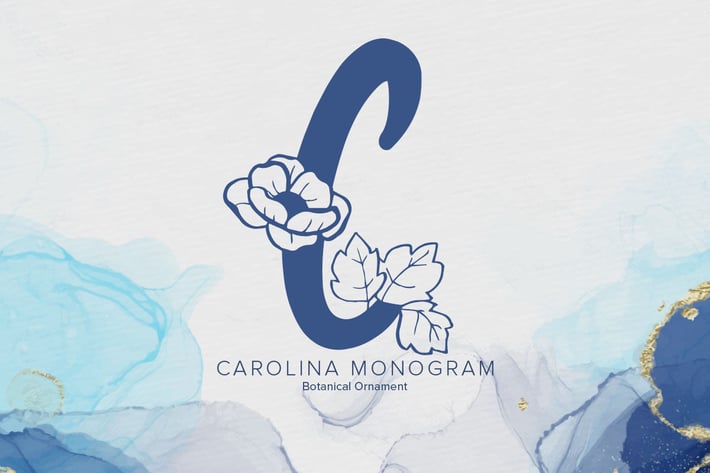
Carolina Monogram Font
Carolina Monogram is a distinct decorative font, featuring lovely flowers. Add this font to your favorite creative ideas and notice how it makes them come alive!